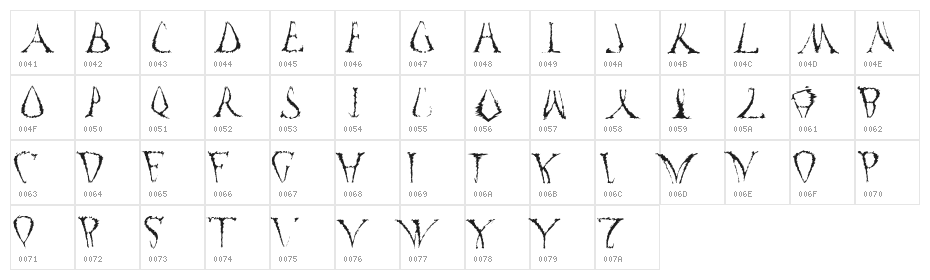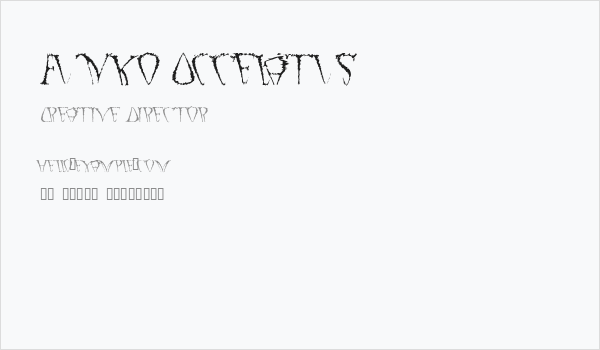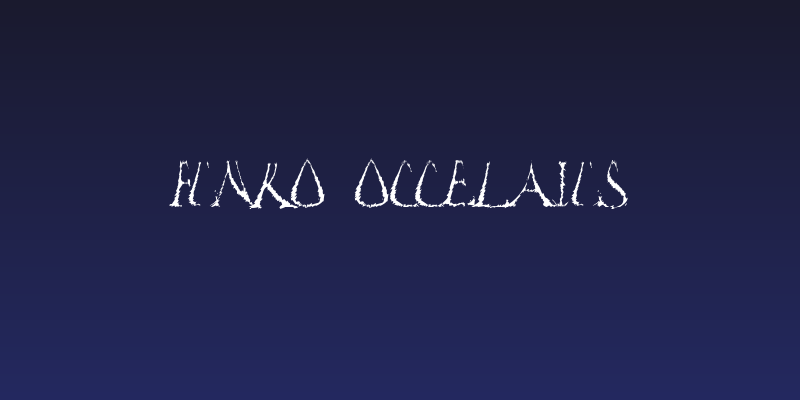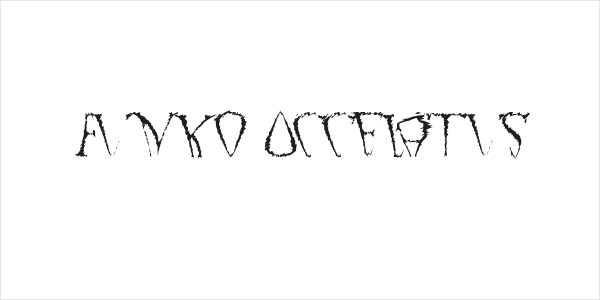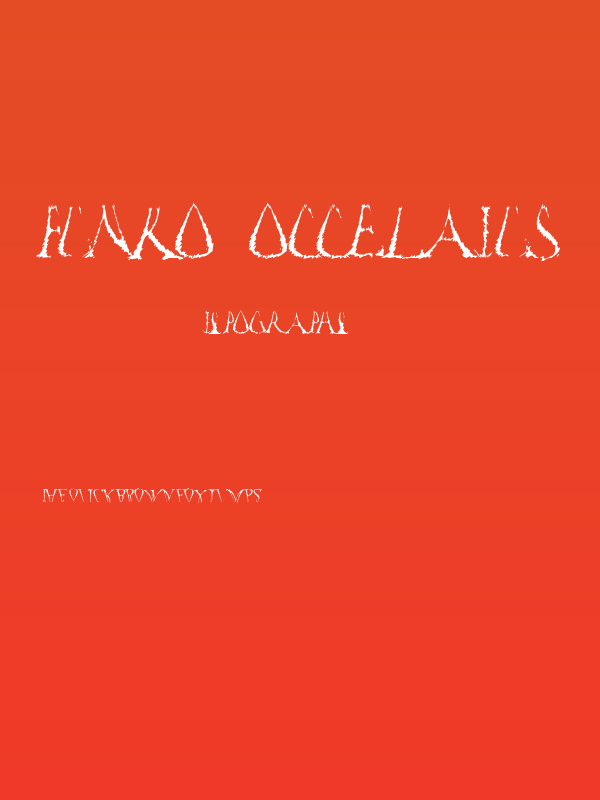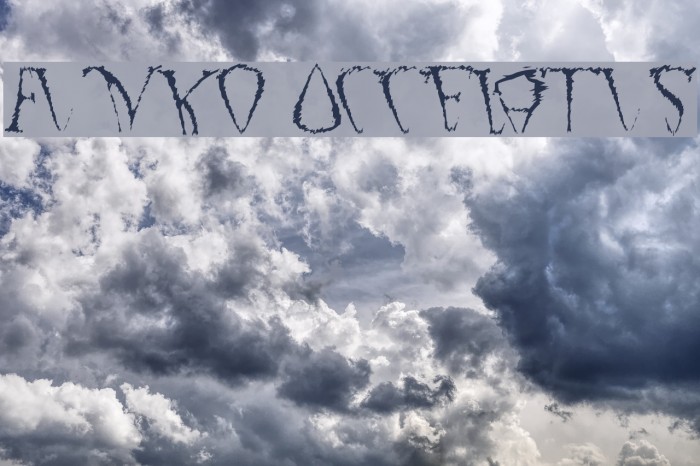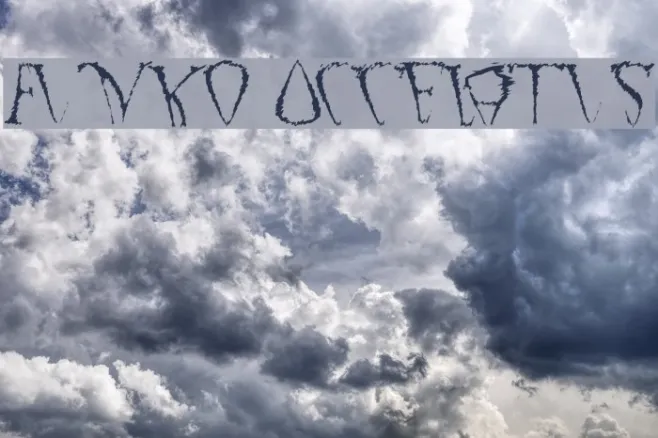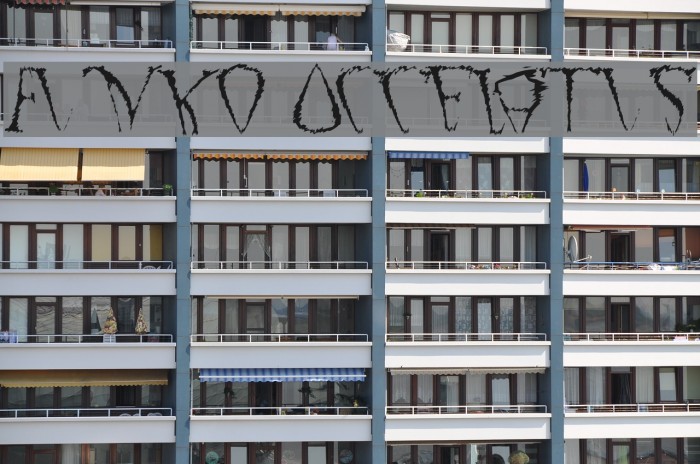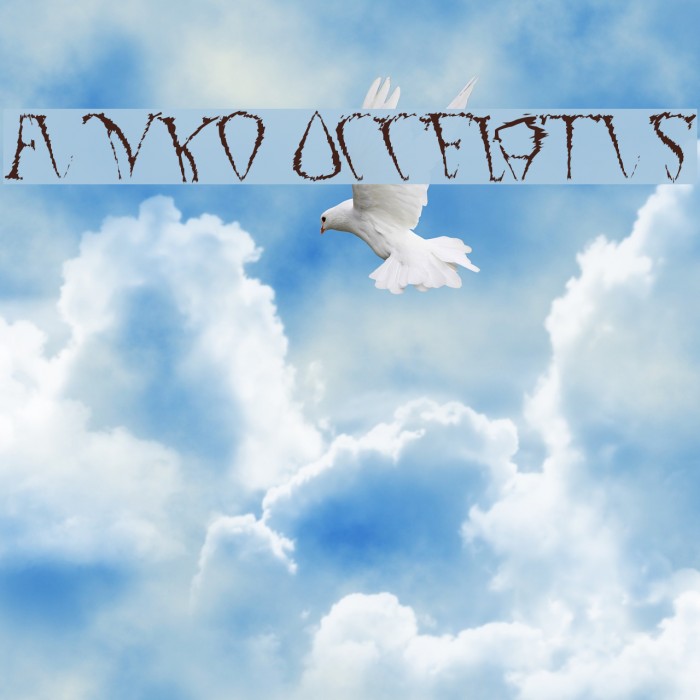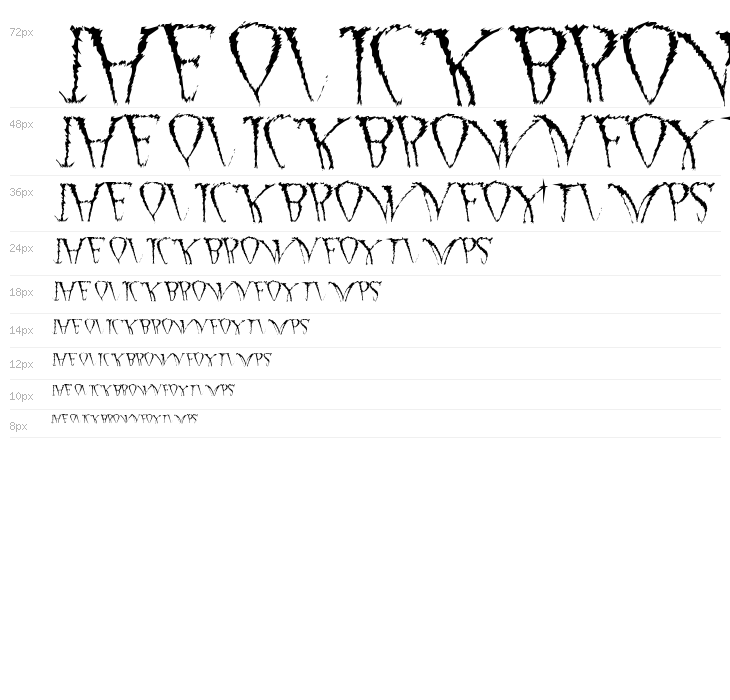
Funko Occelatus Font
Funko Occelatus Description
This font features a highly decorative and distressed style, with jagged edges and an organic, hand-drawn appearance. The uppercase letters have a unique, uneven texture that gives them a dynamic and energetic feel. The lowercase letters maintain the same rugged aesthetic, creating a cohesive look across all characters. The numbers and special characters are similarly styled, ensuring consistency throughout. This font's distinctive design makes it stand out, ideal for projects that require a bold and unconventional typeface.
| Proposed Projects | Ideal for horror-themed designs, edgy posters, album covers, or any project needing a bold, unconventional typeface. |